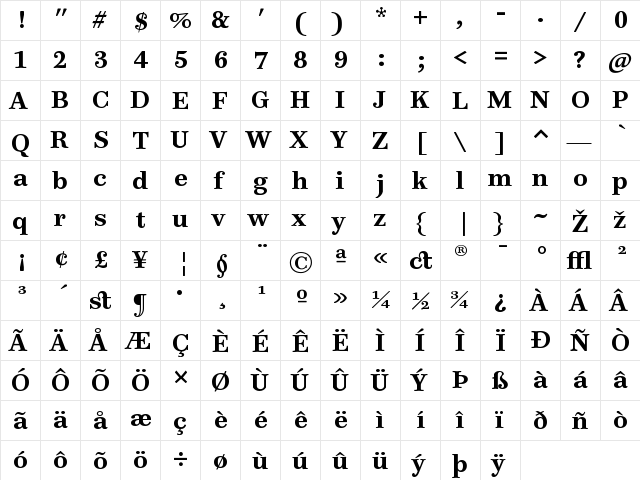
PB12TTP-BoldTF Regular
Design Context for PB12TTP-BoldTF Typeface
PB12TTP-BoldTF offers clean, dependable letterforms without strong stylistic allegiance, making it a practical choice for designers who need flexibility. The heavy weight commands attention and anchors typographic hierarchies.